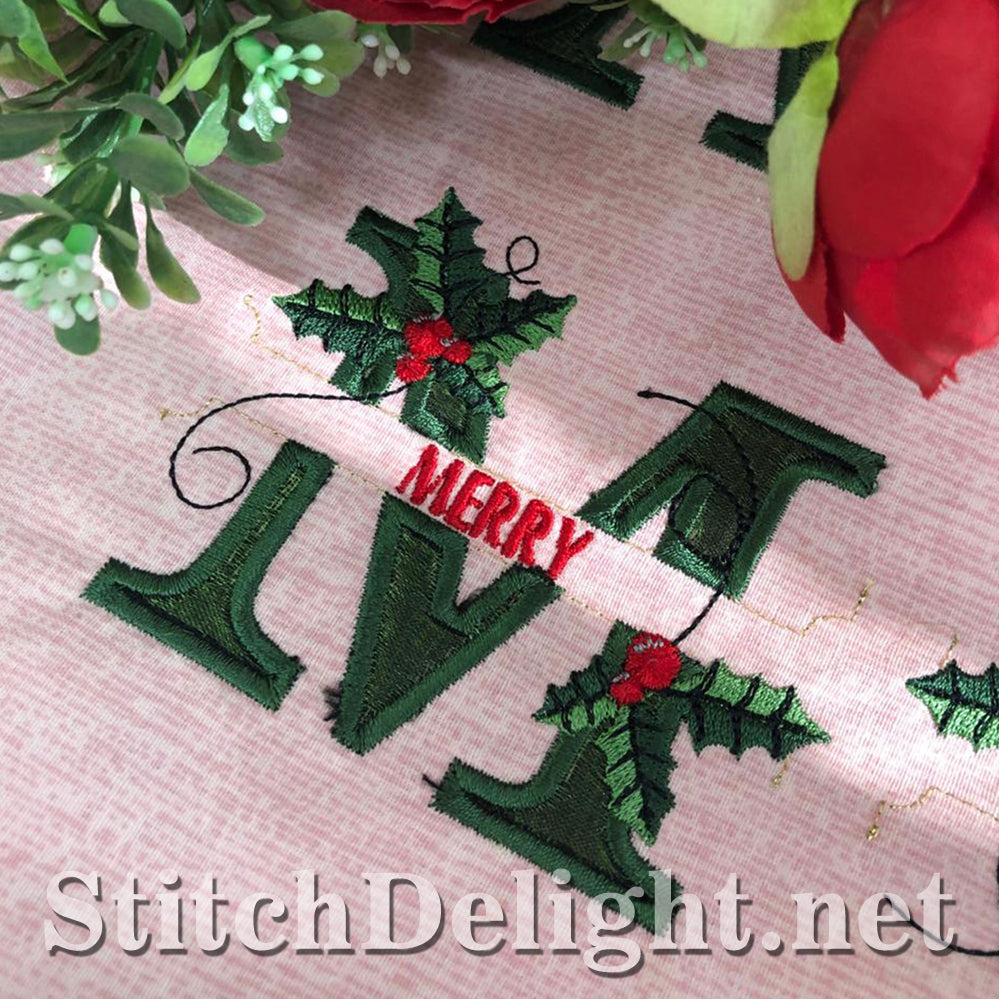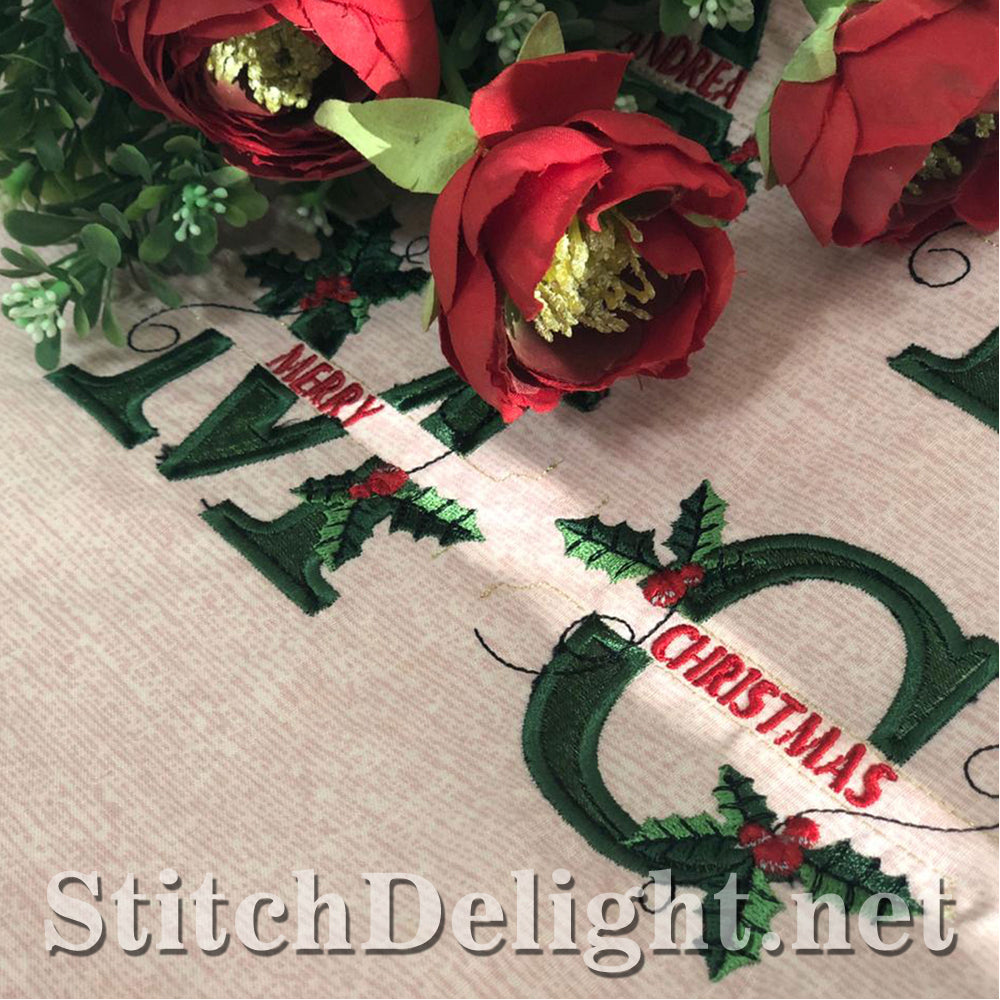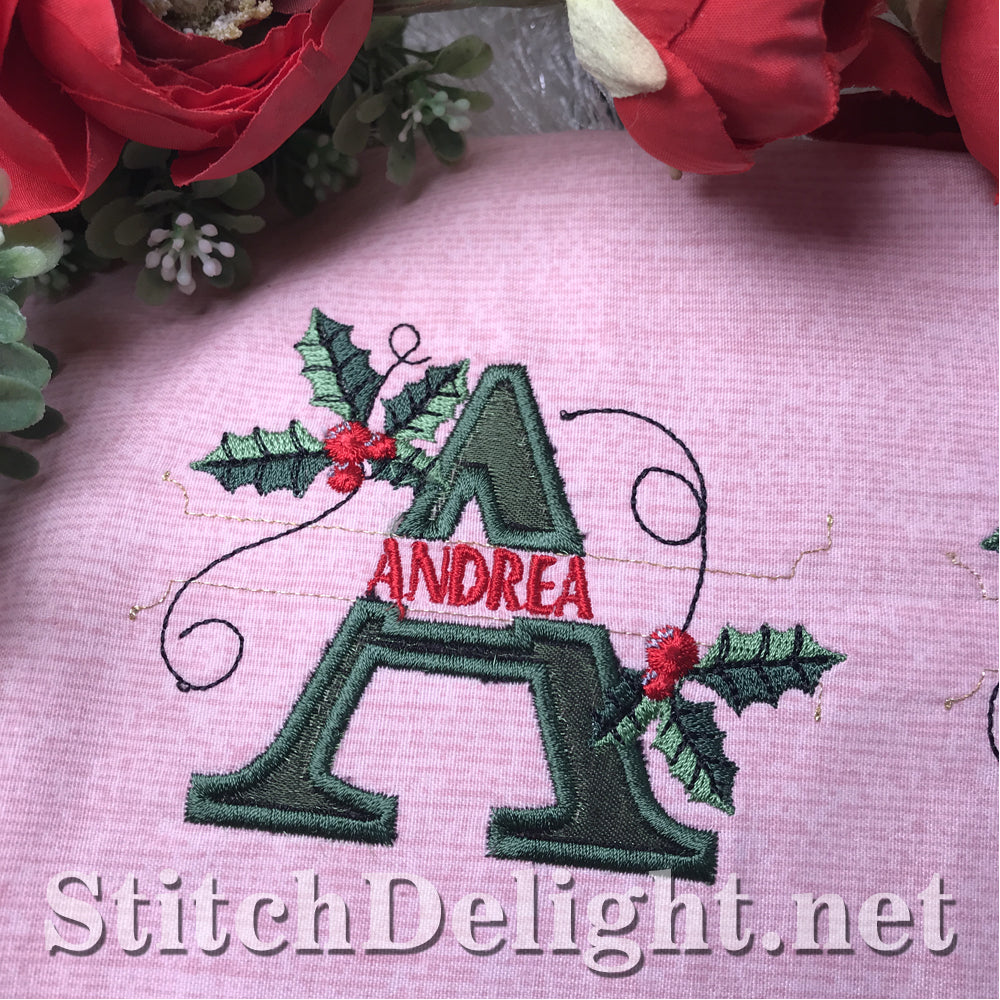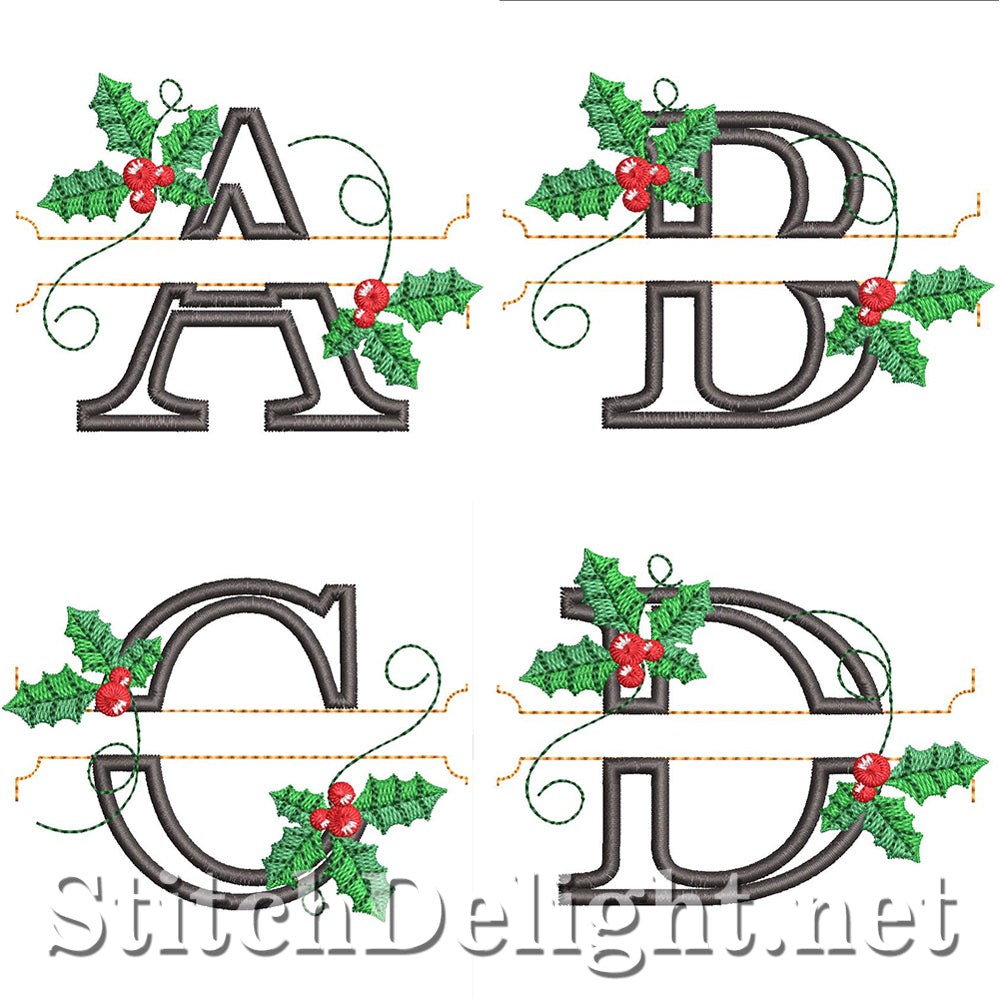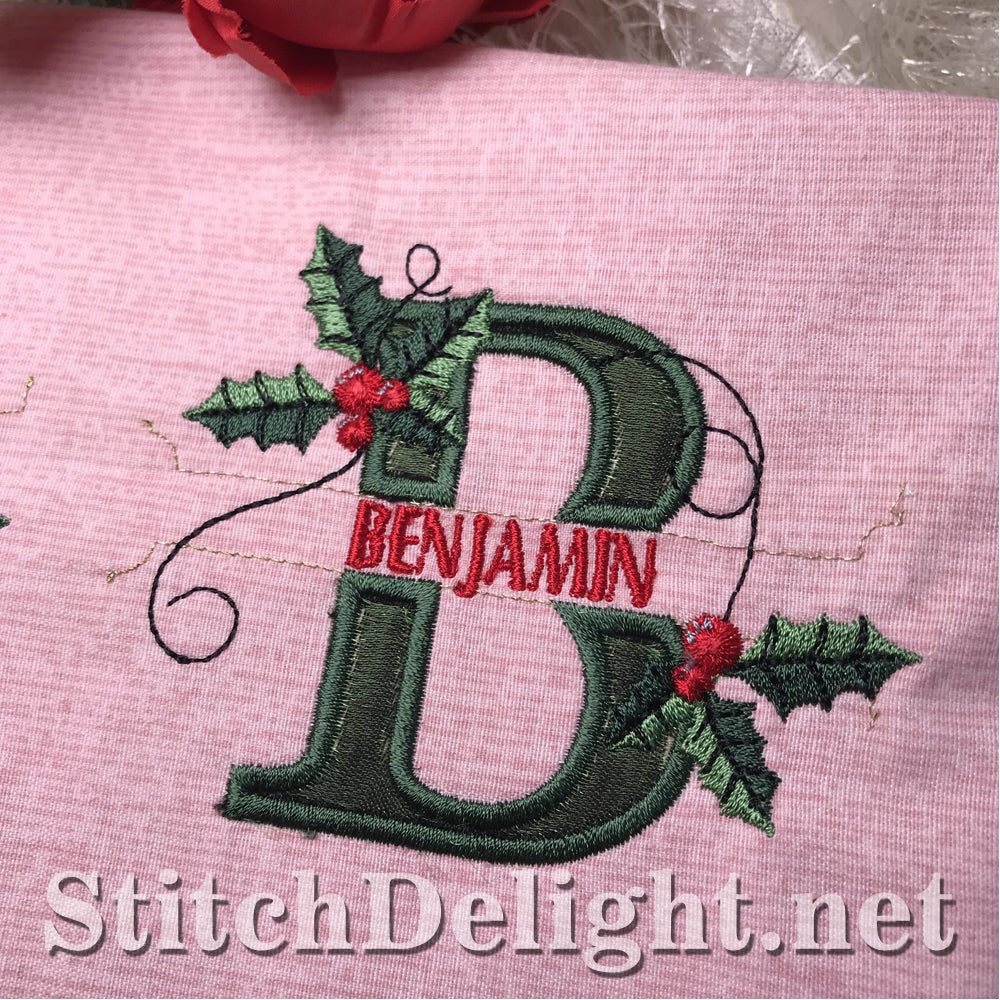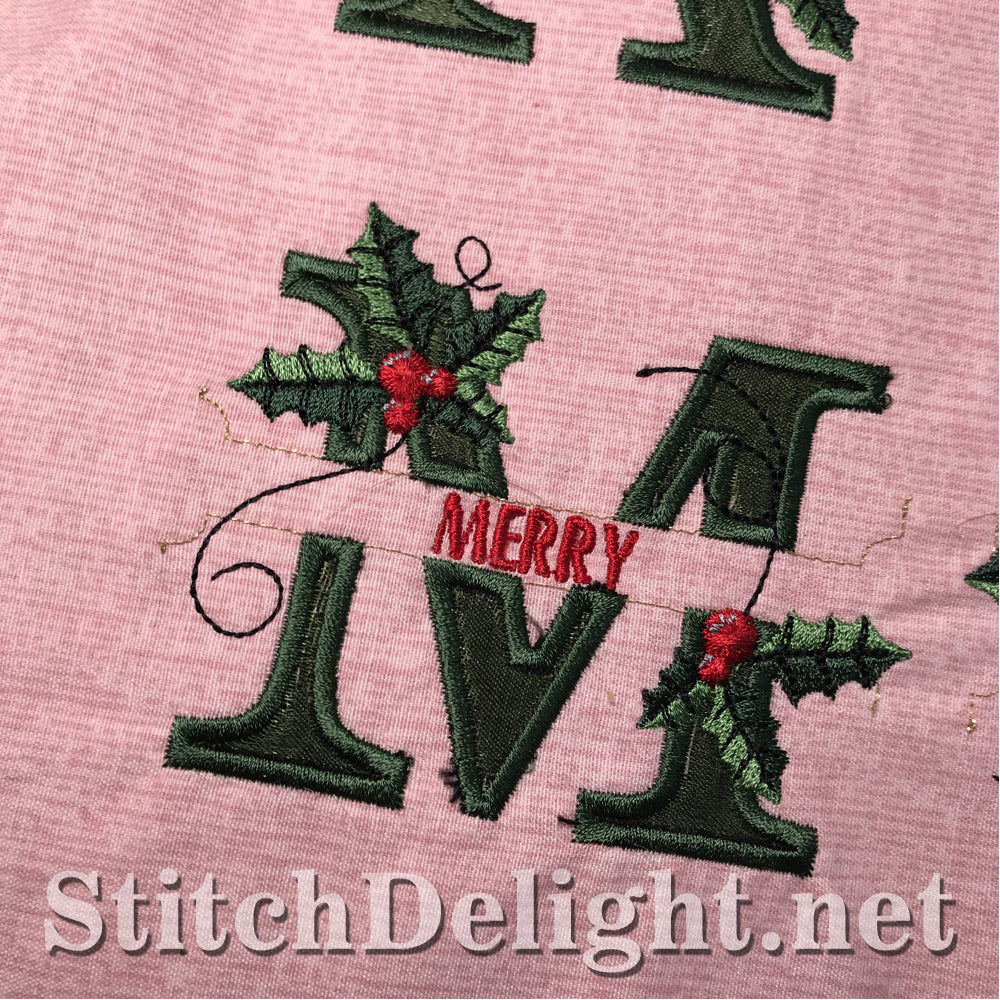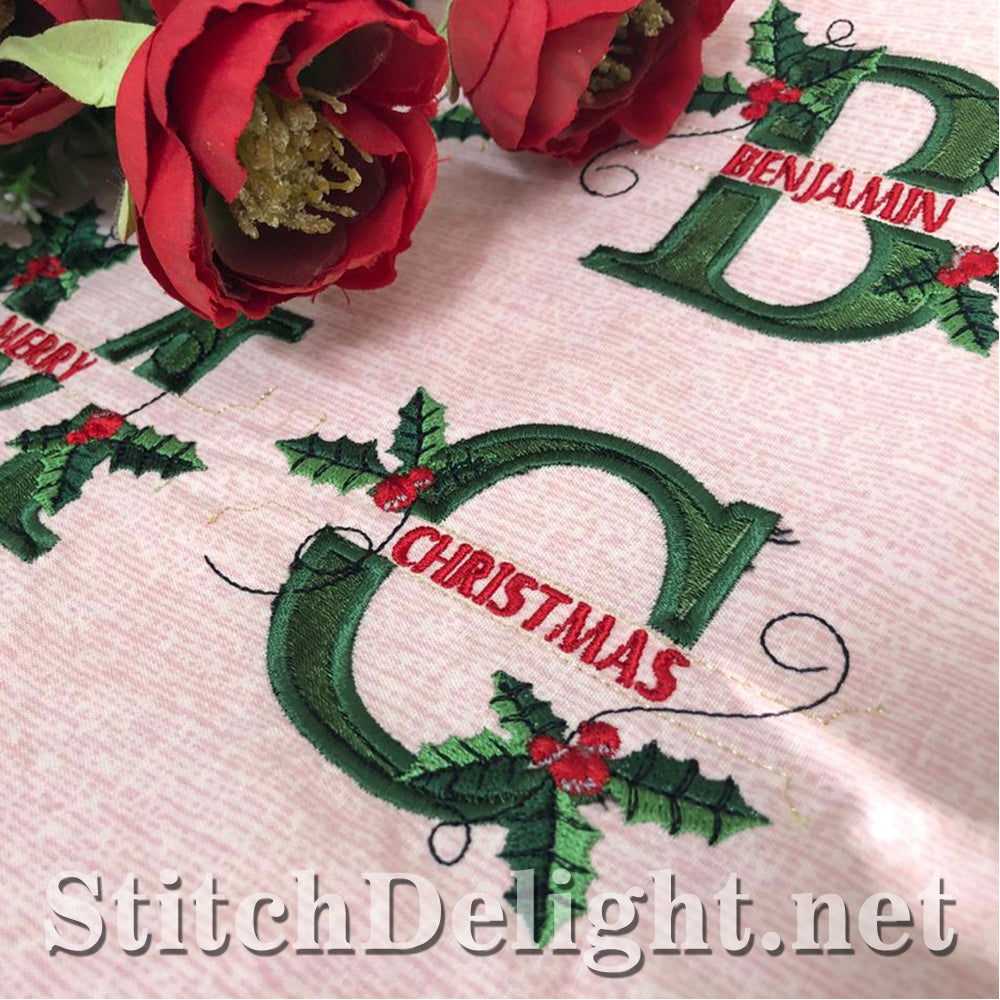
HOE0037 Festive Holly Font
It's never too early to get those Christmas Decorations ready for the festive season. This beautiful font featuring Holly Leaves on a soft pink background is perfect for pillow cases, blankets baby bibs etc. Made to fit the 4x4" Hoop.